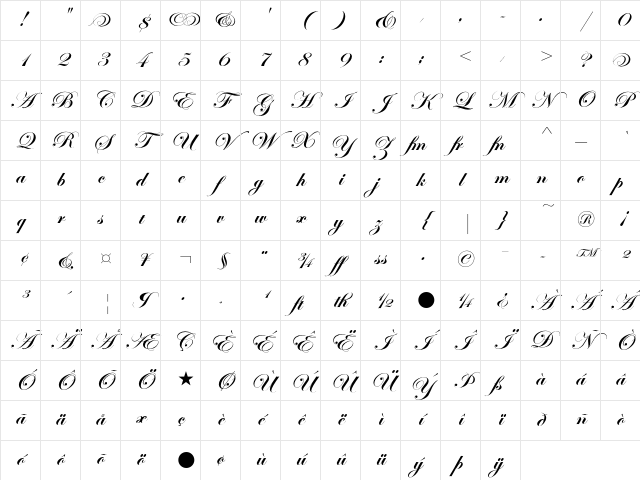
Edwardian Script ITC Bold Alternate
Style: Bold Alternate
Edwardian Script ITC Family
Complete Edwardian Script ITC Bold Alternate glyph index. Displaying only characters natively supported by Edwardian Script ITC Bold Alternate font.
Design Context for Edwardian Script ITC
Edwardian Script ITC flows with the natural rhythm of handwritten lettering, making it ideal for designs that call for warmth and personal expression. Its bold stroke weight gives it real presence on the page.
Font Pairing: Combine Edwardian Script ITC with a simple geometric sans for maximum contrast - the tension between flowing curves and clean structure is a classic typographic pairing.
Pro Tip: Use Edwardian Script ITC for short runs of text - names, titles, or taglines. Extended body copy in script faces tires the eye quickly.